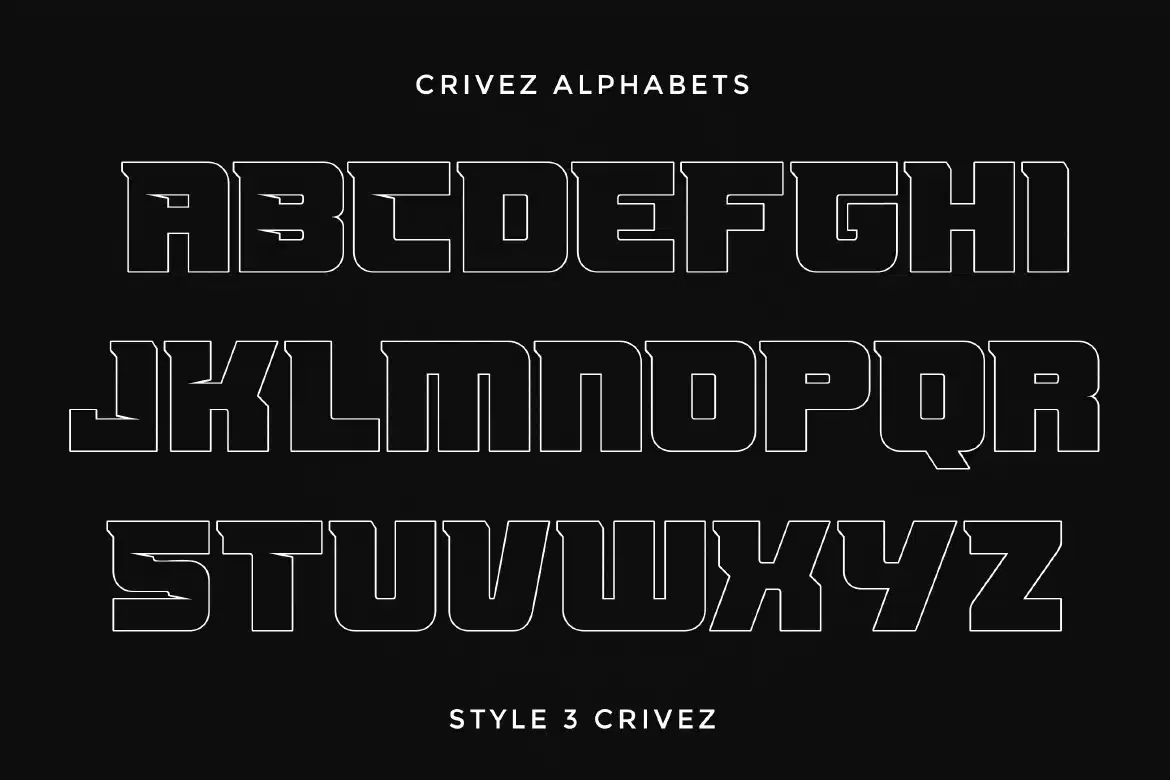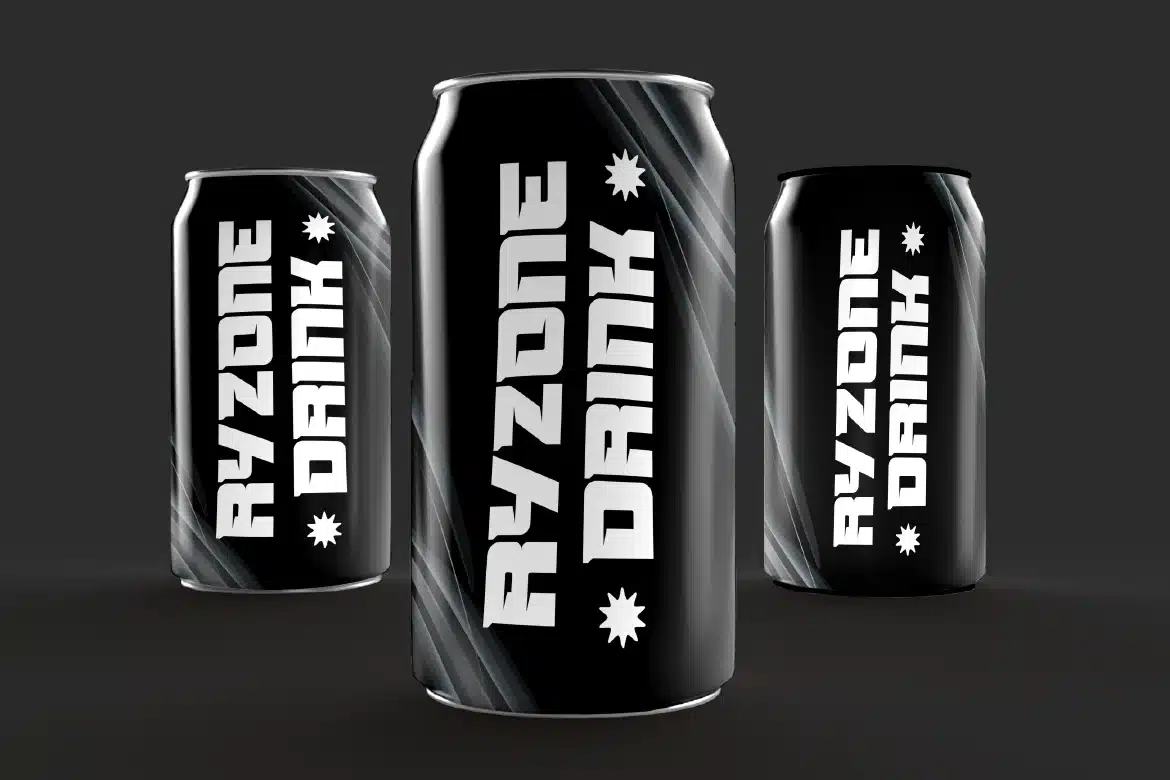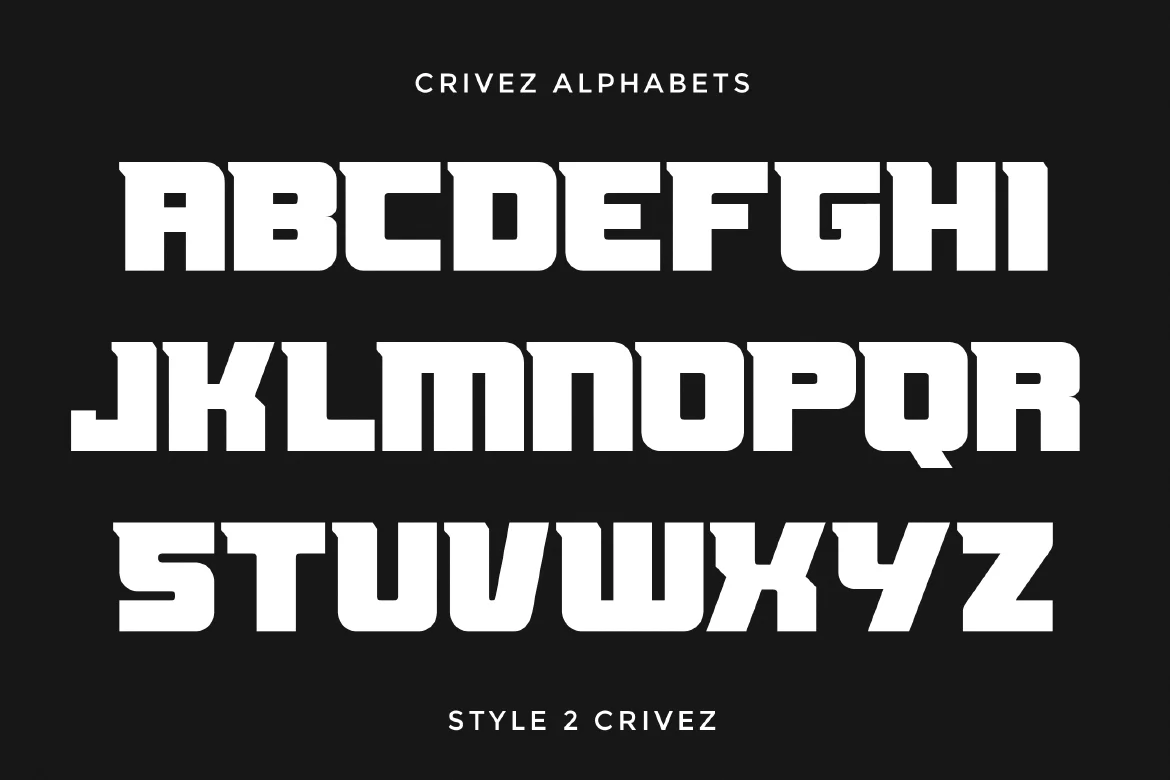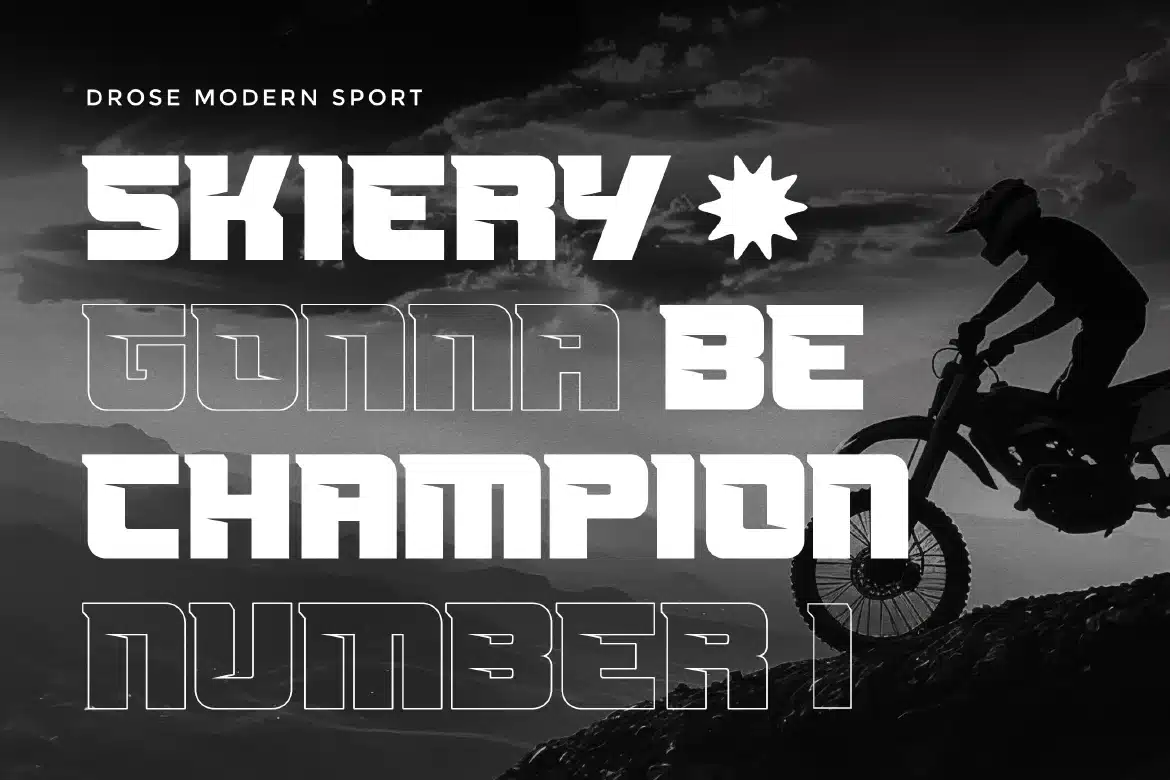
Modern Sport Display Font – Crivez
Modern Sport Display Font - Crivez
Crivez is a modern sport display font that brings a sharp, confident, and performance-driven style to your designs. Defined by its clean lines and structured forms, this typeface delivers a bold yet refined athletic look that feels both contemporary and professional. Designed to perform in high-visibility settings, Crivez works perfectly for headlines, branding, and bold compositions where clarity and impact are essential.
Who Should Use Crivez?
Crivez is ideal for designers and brands looking for a clean, modern sport typeface with a polished edge. Itβs especially suitable for projects that require a strong yet streamlined visual identity.
Sports and team branding
Esports and gaming visuals
Fitness and active lifestyle design
Tech and modern branding
Posters and promotional graphics
Social media content
Bold and dynamic typography